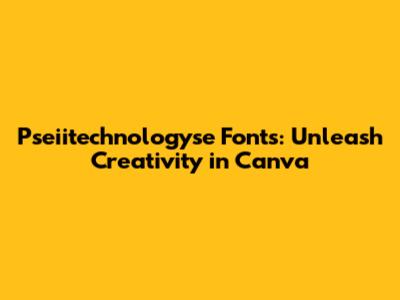
- Montserrat: This is a clean and modern sans-serif font that works well for headlines and body text. Its geometric forms give it a techy vibe. Use it for website headers, presentations, and social media graphics.
- Raleway: Another versatile sans-serif font with a slightly more elegant feel. It's great for creating a sophisticated yet modern look. Try it for branding materials, business cards, and website navigation.
- Oswald: A bold and condensed sans-serif font that's perfect for headlines and titles. Its strong, geometric shapes make it ideal for tech-related designs. Use it for posters, flyers, and social media ads.
- Bebas Neue: A tall and narrow sans-serif font that's great for making a statement. Its modern and minimalist design makes it perfect for tech startups and innovative brands. Use it for website headers, banners, and promotional materials.
- Poppins: A geometric sans-serif font that's both modern and friendly. It's versatile enough to be used for both headlines and body text. Try it for website designs, mobile apps, and educational materials.
- Keep it simple: Don't overcrowd your design with too many elements. Use whitespace effectively to give your fonts room to breathe.
- Use a limited color palette: Stick to a few complementary colors to create a cohesive and visually appealing look.
- Pay attention to detail: Adjust kerning, leading, and tracking to improve the readability and visual appeal of your fonts.
- Use high-quality images: Choose images that complement your fonts and enhance the overall message of your design.
- Get feedback: Ask friends, colleagues, or other designers to review your work and provide constructive criticism.
- Stay up-to-date: Keep an eye on the latest design trends and experiment with new fonts and techniques.
- Practice, practice: The more you design, the better you'll become at using Pseiitechnologyse fonts effectively.
Hey guys! Ever wondered how to make your Canva designs pop and stand out from the crowd? Well, one of the secrets lies in choosing the right fonts. And if you're looking for something unique and modern, Pseiitechnologyse fonts might just be your golden ticket. In this article, we're diving deep into the world of Pseiitechnologyse fonts, exploring how you can use them effectively in Canva, and giving you some tips to make your designs truly shine. So, buckle up and let's get started!
What are Pseiitechnologyse Fonts?
First things first, let's define what we mean by "Pseiitechnologyse fonts." These fonts typically embody a futuristic, tech-inspired aesthetic. Think sleek lines, geometric shapes, and a generally modern vibe. They often feature elements that evoke a sense of innovation, digital advancement, and cutting-edge design. The term itself might sound a bit abstract, but the visual characteristics are usually quite distinct. When you see a font that looks like it belongs on a sci-fi movie poster or a high-tech startup's website, you're probably in the realm of Pseiitechnologyse fonts. These fonts aren't just about looking cool; they're about conveying a message of progress, sophistication, and forward-thinking. They can add a layer of meaning to your designs, subtly communicating that your brand or project is modern and innovative. Moreover, Pseiitechnologyse fonts often come with a range of weights and styles, offering versatility for different design needs. From bold headlines to subtle body text, you can find variations that maintain the overall techy aesthetic while serving different functional purposes. This adaptability makes them valuable assets in any designer's toolkit. The key to using them effectively is understanding the specific nuances of each font and how it aligns with your overall design goals. Whether you're creating a presentation, a social media graphic, or a website mockup, the right Pseiitechnologyse font can elevate your work and capture the attention of your audience. Remember, it's not just about choosing a font that looks cool; it's about selecting one that enhances your message and reinforces your brand identity. So, take your time to explore the various options and experiment with different combinations to find the perfect fit for your project. Ultimately, the goal is to create designs that are not only visually appealing but also meaningful and impactful. And with the right Pseiitechnologyse font, you can achieve just that.
Finding Pseiitechnologyse Fonts in Canva
Okay, so you're sold on the idea of using Pseiitechnologyse fonts. Now, how do you actually find them in Canva? Canva's font library is extensive, but it requires a bit of savvy to navigate. Here's a breakdown of how to locate those tech-inspired fonts: First off, the bad news: there isn't a direct category called "Pseiitechnologyse" in Canva's font selection. But don't worry, we can still find some gems! Here’s what you can do. Start by using keywords like "tech," "modern," "futuristic," "digital," and "geometric" in the font search bar. Canva's search function is pretty robust, and these terms should pull up fonts that align with the Pseiitechnologyse aesthetic. Another trick is to browse through font categories like "Sans Serif" and "Display." These categories often contain fonts with the clean, minimalist lines and eye-catching designs characteristic of tech-inspired typography. Look for fonts with sharp angles, unusual letterforms, or a generally contemporary feel. Don't be afraid to scroll through several pages of fonts – you might be surprised at what you discover. Once you find a font that looks promising, click on it to see a preview of how it looks in different sizes and styles. Pay attention to the font's legibility and how well it fits with your overall design. You can also experiment with different text samples to get a better sense of its versatility. If you have a specific font in mind that you've seen elsewhere, you can try uploading it to Canva if you have a Canva Pro account. This gives you even more flexibility and allows you to use fonts that aren't available in Canva's built-in library. Keep in mind that some fonts may require a commercial license for use in certain projects, so be sure to check the licensing terms before using any font in your designs. And finally, don't underestimate the power of font pairing. Combining a Pseiitechnologyse font with a more traditional font can create a dynamic and visually appealing contrast. Experiment with different combinations to see what works best for your project. The key is to find fonts that complement each other and enhance the overall message of your design. With a little bit of searching and experimentation, you'll be able to find the perfect Pseiitechnologyse fonts to elevate your Canva designs. So, get out there and start exploring!
Using Pseiitechnologyse Fonts Effectively
Alright, you've found some cool Pseiitechnologyse fonts in Canva. Now, let's talk about how to use them effectively. It's not enough to just slap a futuristic font on your design; you need to use it strategically to enhance your message. First off, consider the context of your design. Is it for a tech startup's website, a social media ad for a new gadget, or a presentation about the future of AI? The font you choose should align with the overall theme and purpose of your design. A sleek, minimalist font might be perfect for a tech company's branding, while a more playful, geometric font could work well for a children's educational app. Another important factor is legibility. While Pseiitechnologyse fonts can look incredibly stylish, some of them can be difficult to read, especially in smaller sizes. Make sure that your chosen font is clear and easy to read, even for people with visual impairments. Use font weights and styles to create hierarchy and emphasis. A bold Pseiitechnologyse font can be great for headlines, while a lighter weight can work well for body text. Experiment with different font sizes and spacing to improve readability and visual appeal. Pay attention to font pairing. As mentioned earlier, combining a Pseiitechnologyse font with a more traditional font can create a dynamic contrast. Try pairing a futuristic sans-serif font with a classic serif font to add a touch of elegance and sophistication to your design. Use color to enhance the impact of your fonts. A bright, neon color can make a Pseiitechnologyse font pop, while a more muted color can create a subtle, understated look. Experiment with different color combinations to find what works best for your design. Be mindful of kerning and leading. Kerning refers to the spacing between individual letters, while leading refers to the spacing between lines of text. Adjusting these settings can greatly improve the readability and visual appeal of your fonts. Use whitespace effectively. Don't cram too much text into your design. Give your fonts room to breathe by using whitespace strategically. This will make your design look cleaner and more professional. And finally, don't be afraid to experiment. Try different fonts, styles, colors, and layouts to see what works best for your project. The key is to have fun and let your creativity shine. With a little bit of experimentation and attention to detail, you can use Pseiitechnologyse fonts to create stunning designs that capture the attention of your audience. Remember, the goal is to create designs that are not only visually appealing but also meaningful and impactful. And with the right Pseiitechnologyse font, you can achieve just that.
Examples of Pseiitechnologyse Fonts in Canva
Okay, let's get practical. Here are a few examples of fonts available in Canva that could be considered Pseiitechnologyse, along with ideas on how to use them:
Remember to experiment with different weights, styles, and sizes to find the perfect fit for your project. And don't be afraid to combine these fonts with other fonts to create a unique and visually appealing look. For example, you could pair Montserrat with a classic serif font like Times New Roman to add a touch of elegance to your design. Or you could combine Oswald with a script font like Brush Script MT to create a more playful and dynamic look. The possibilities are endless! The key is to have fun and let your creativity shine. With a little bit of experimentation, you can use these Pseiitechnologyse fonts to create stunning designs that capture the attention of your audience. So, get out there and start exploring!
Tips for Creating Stunning Designs with Pseiitechnologyse Fonts
To wrap things up, here are a few extra tips to help you create stunning designs with Pseiitechnologyse fonts in Canva:
By following these tips, you can create designs that are not only visually appealing but also meaningful and impactful. So, go forth and create!